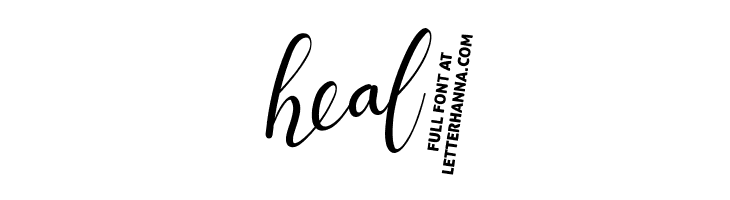
A bold, playful handwritten font with flowing strokes and whimsical curves.
A cursive, handwritten-style font with elegant loops and swashes.
A cursive, calligraphic font with elegant, flowing strokes.